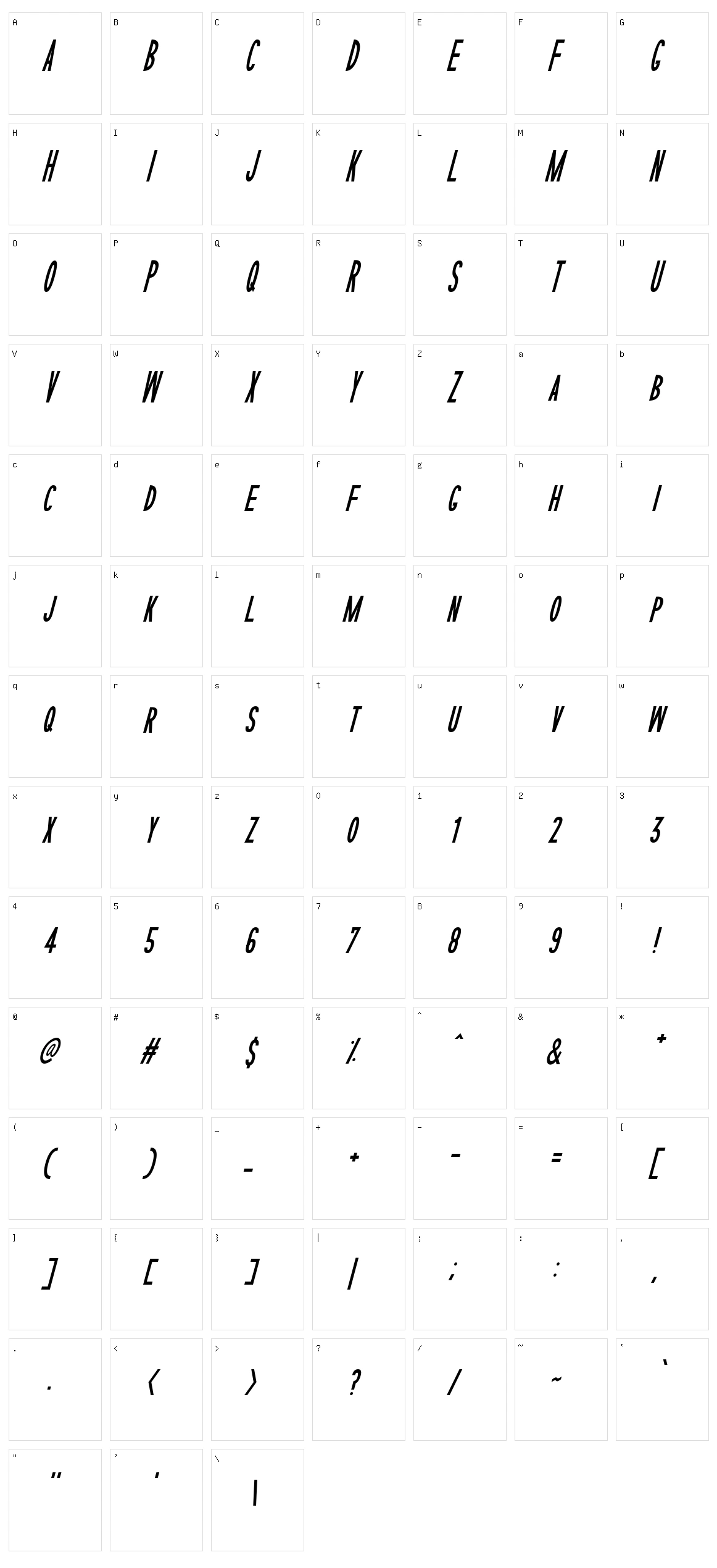
The free font Sophisticated Slims is carefully designed by Hawtpixel, showcasing a thoughtful balance of creativity and usability and falls under the Sans serif font style. When you download the ZIP file, it contains only 105.32 KB of font files, making it lightweight and quick to download. Please review the license details below to understand permitted usage and distribution rights. If license information is not available, we recommend using this font for personal projects only or contacting the author directly for commercial usage permissions.